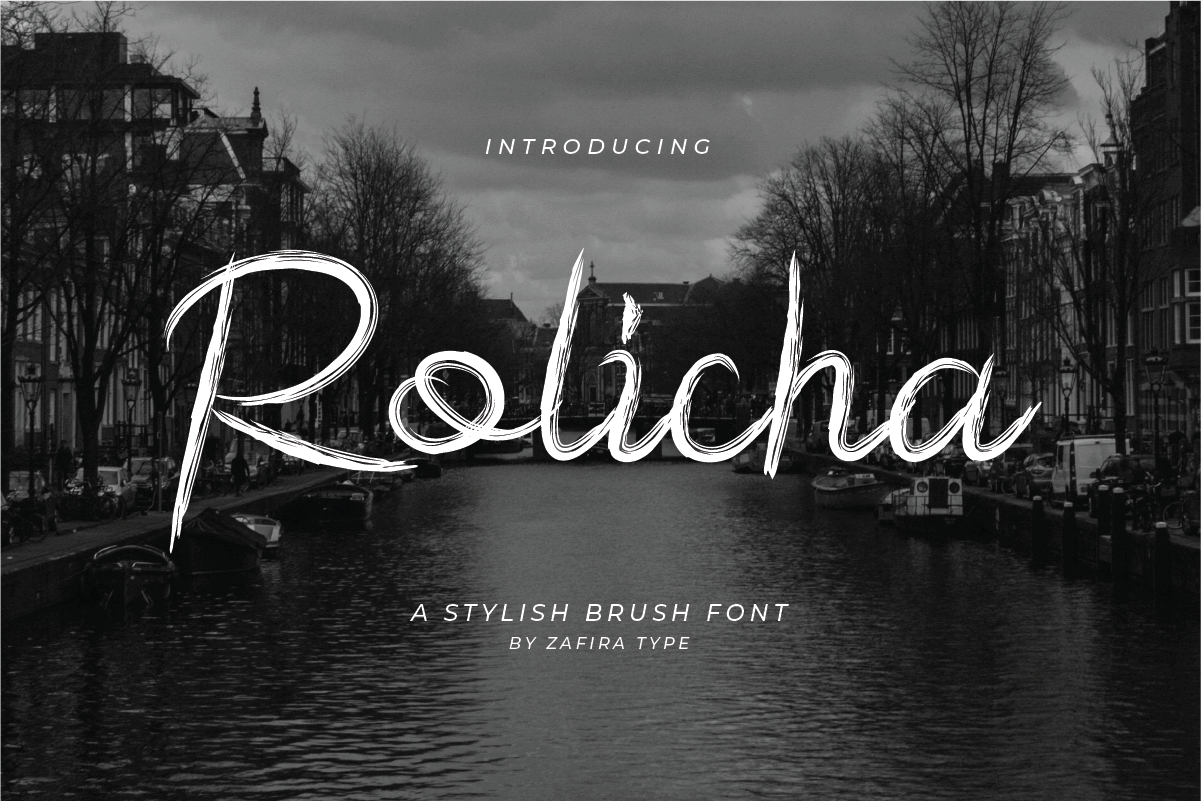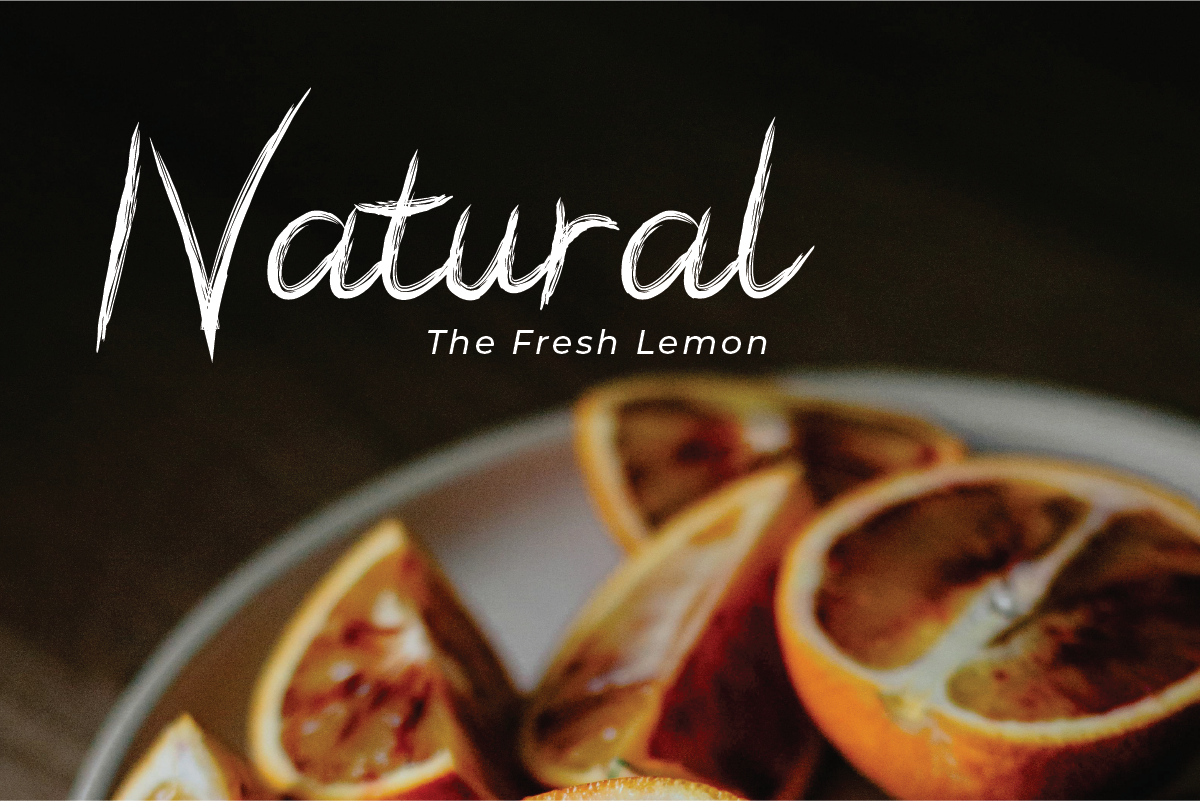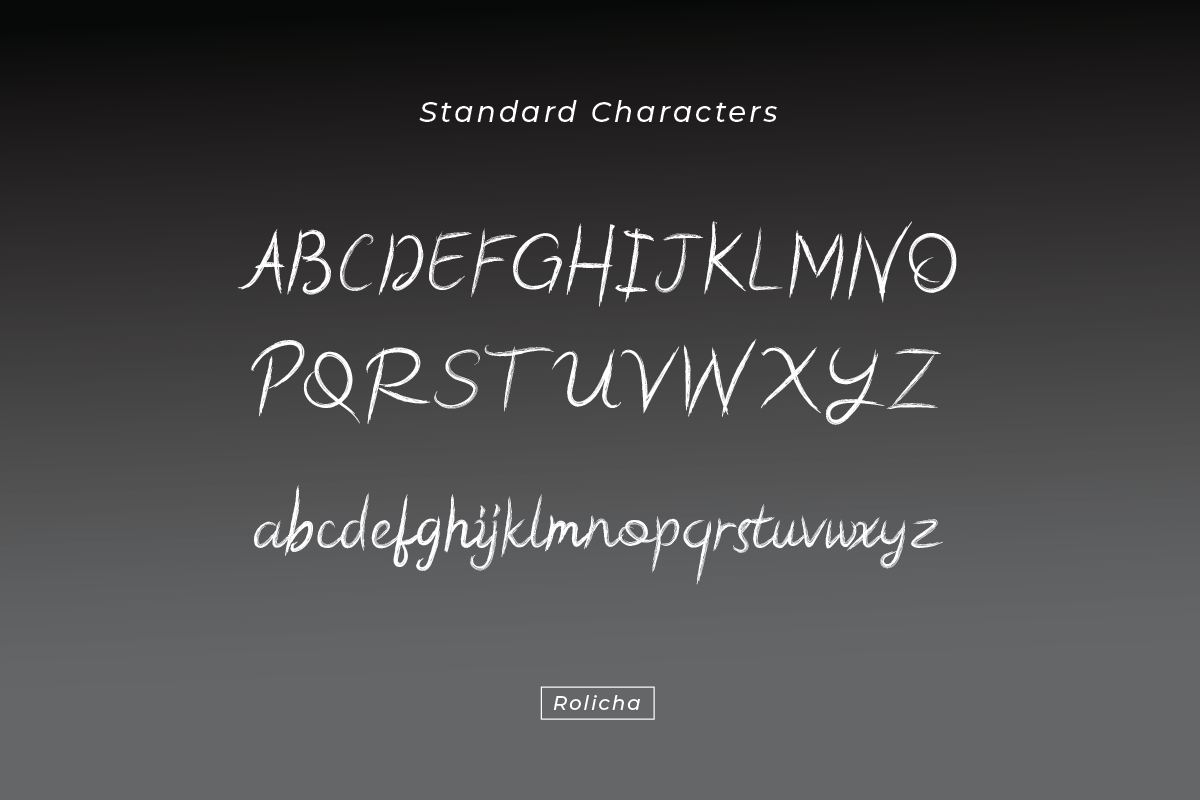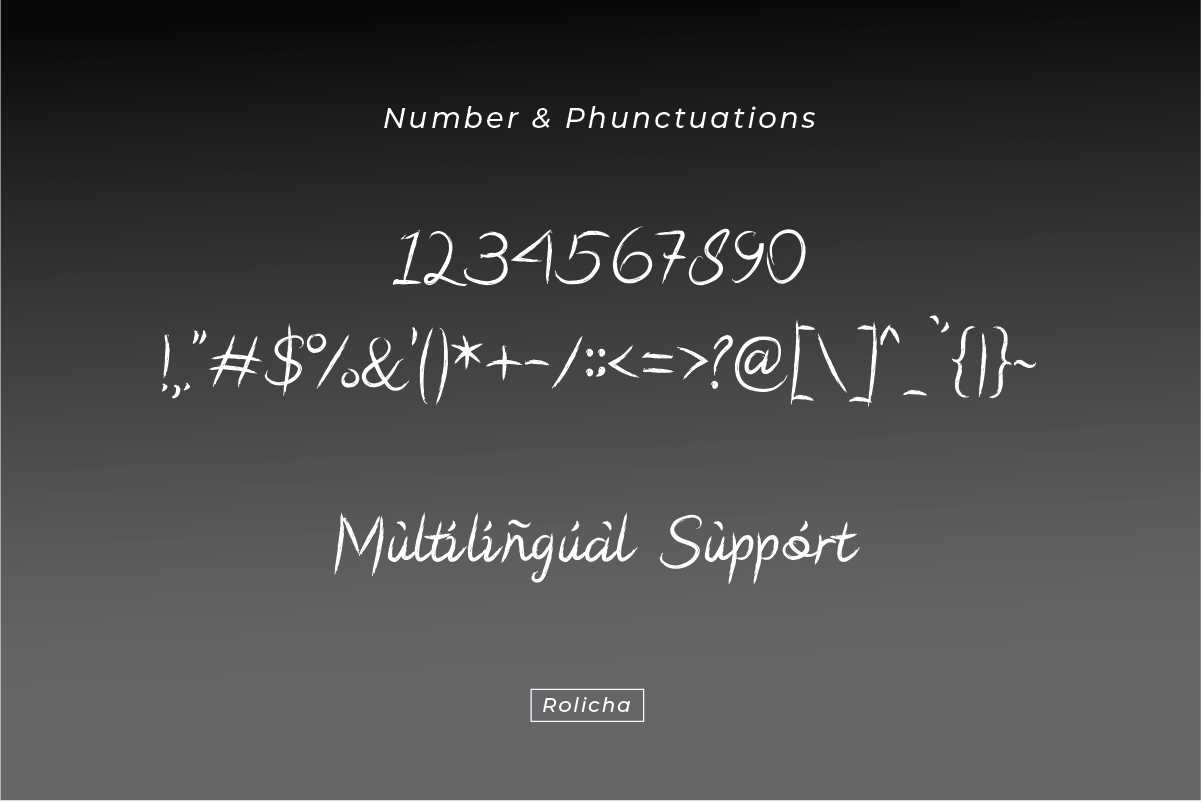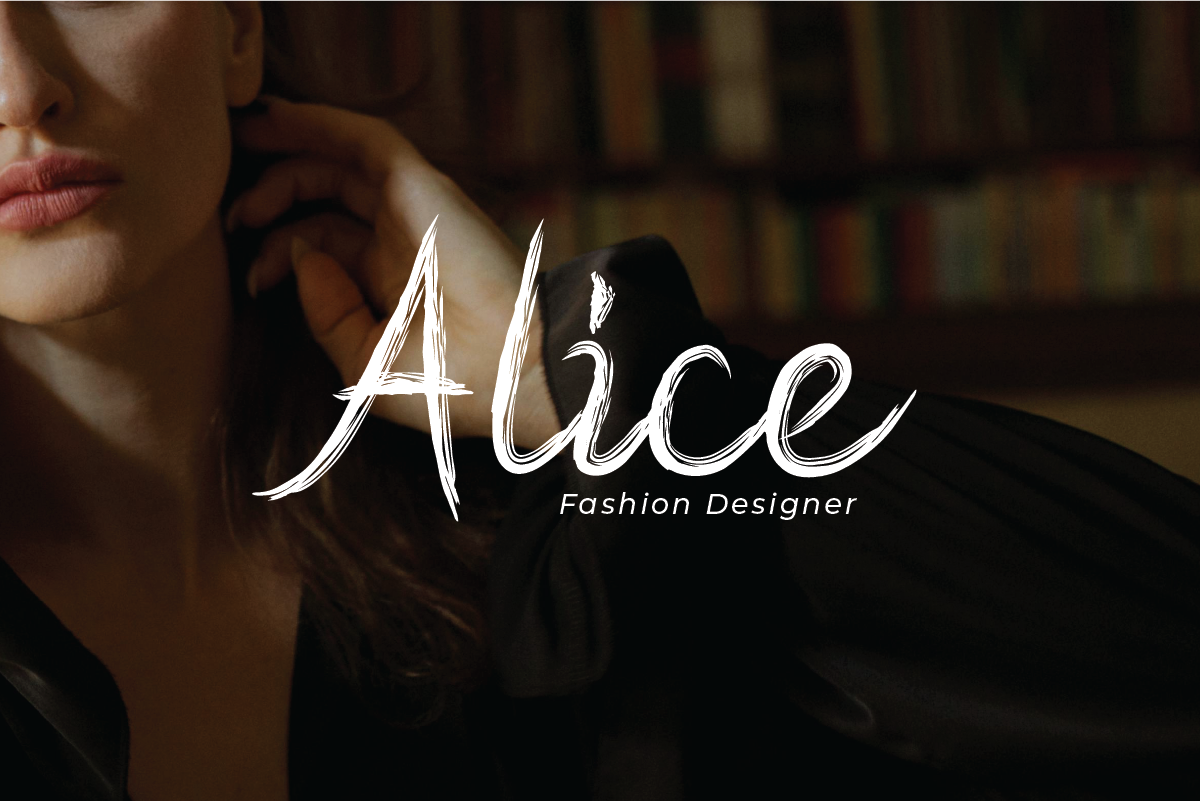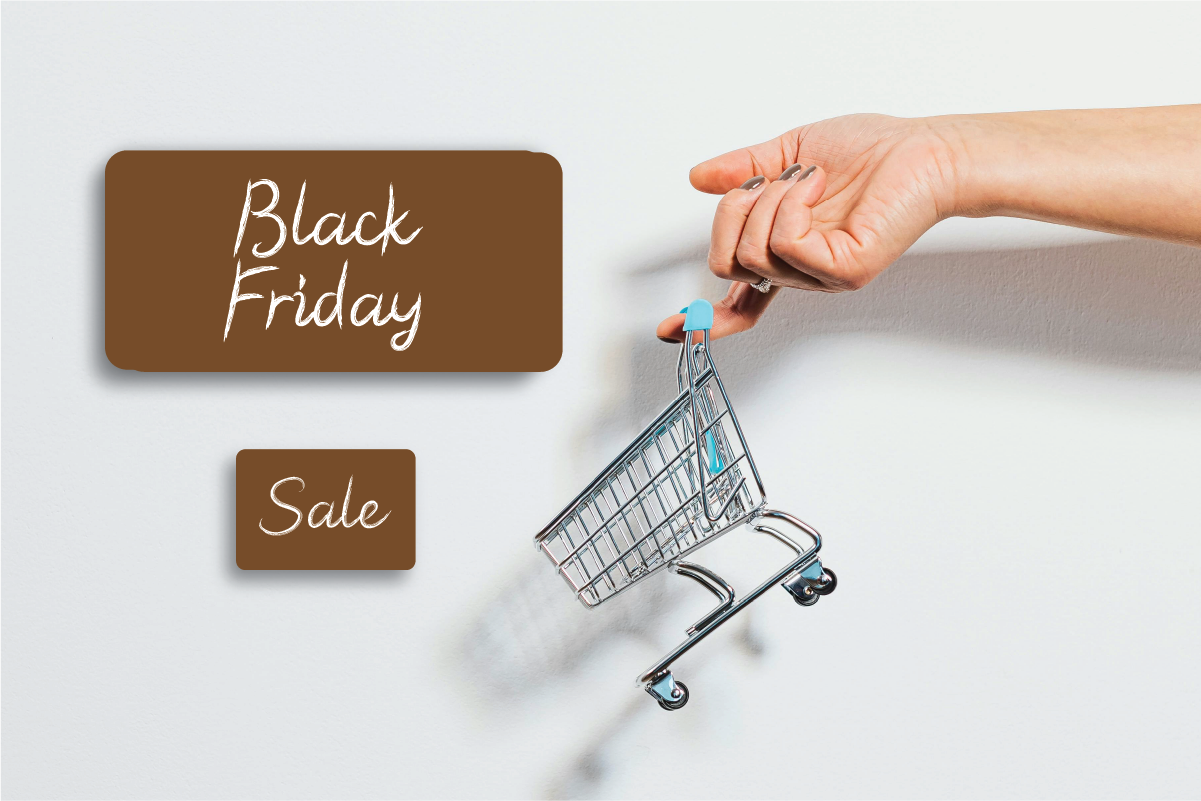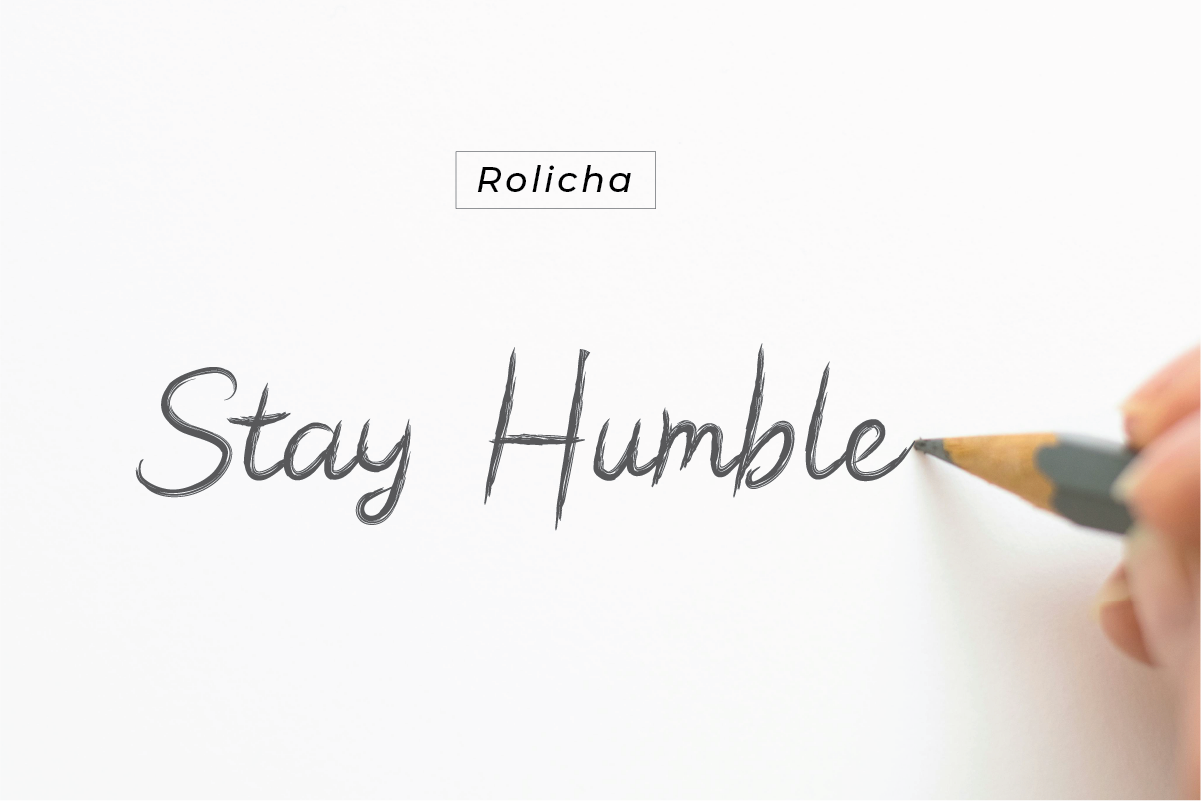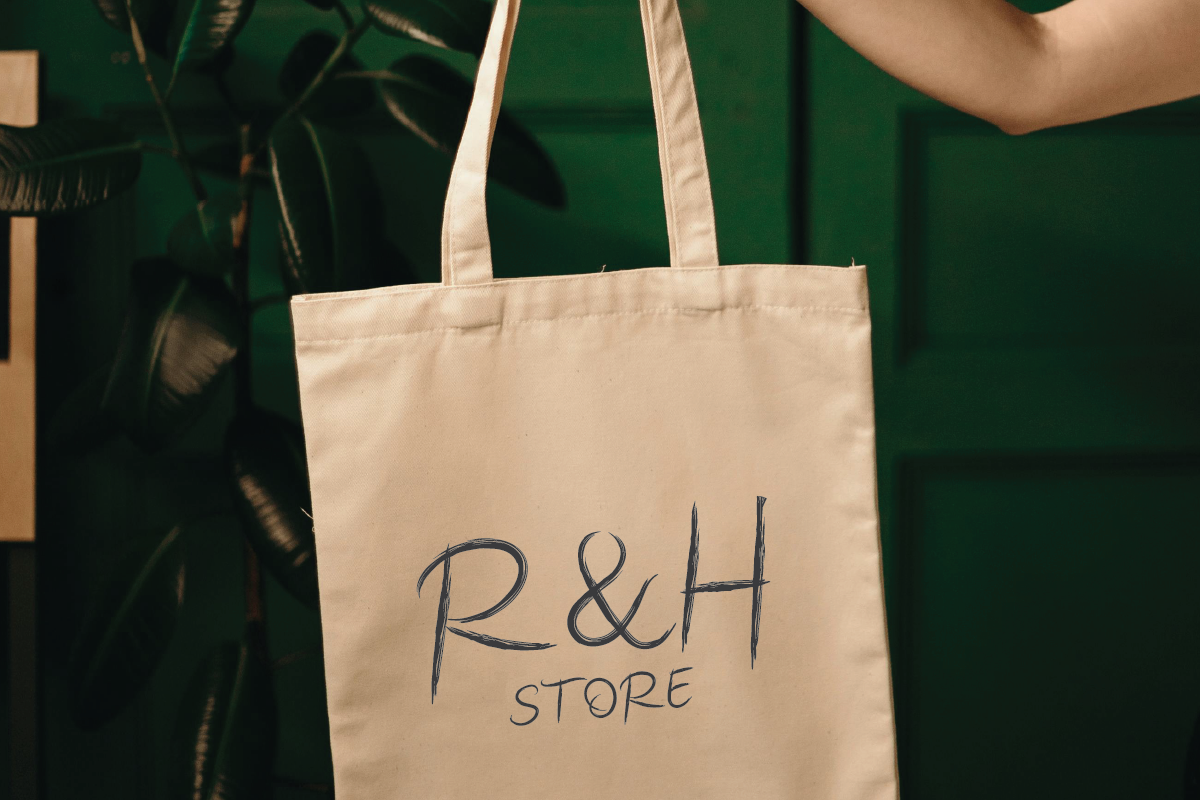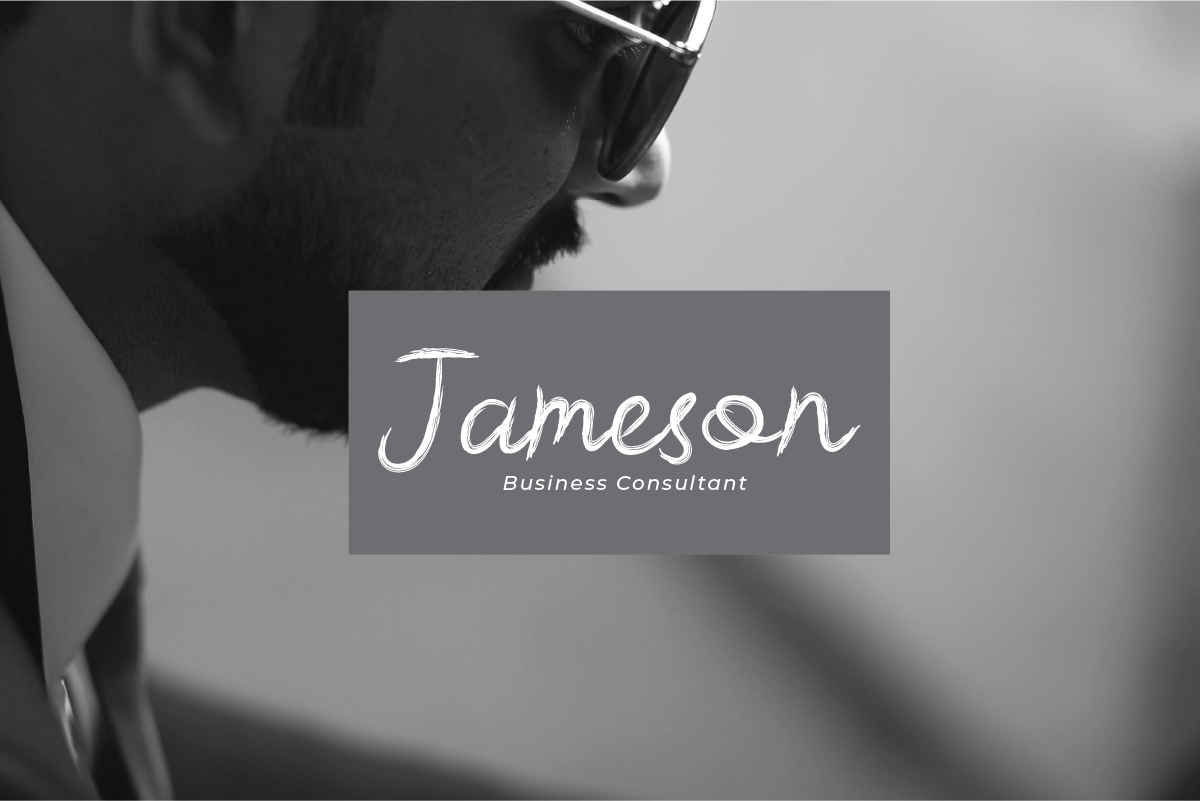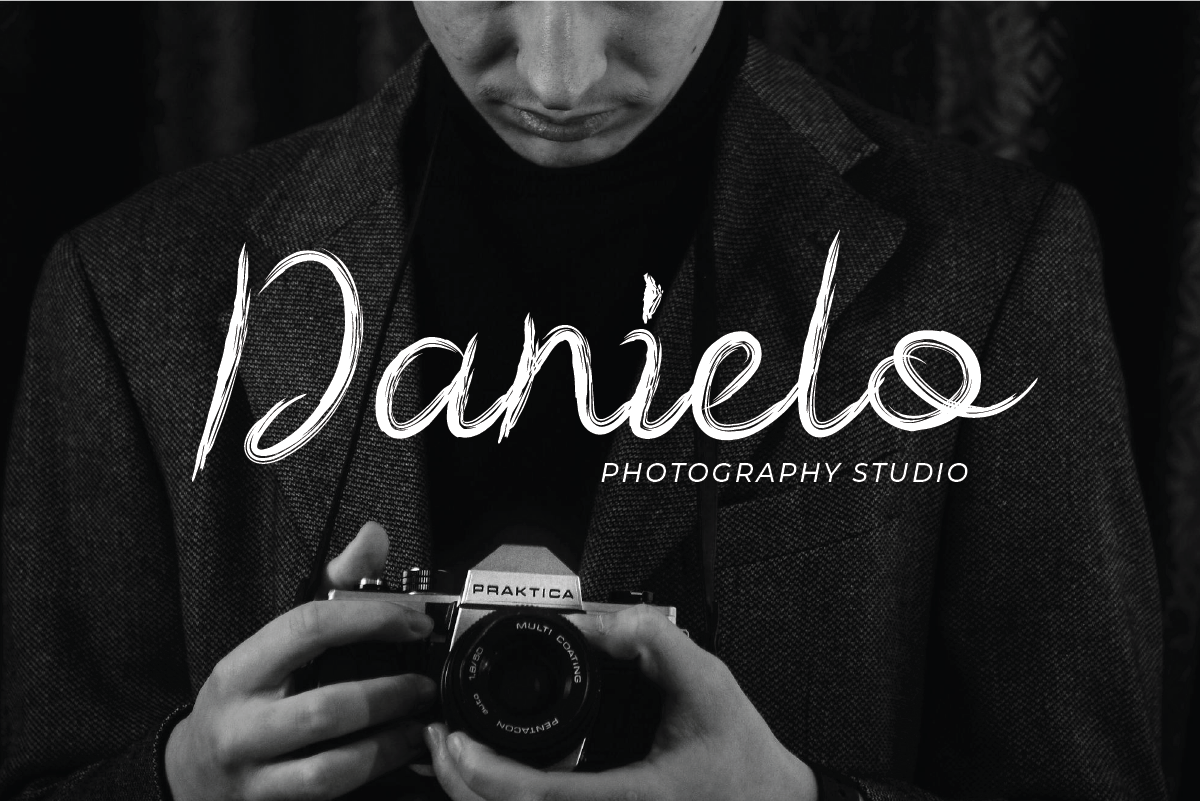
Rolicha
Introducing Rolicha, a dynamic and expressive brush font that adds an artistic touch to your design projects. With its natural strokes, Rolicha exudes a handcrafted feel full of character. Perfect for branding, posters, packaging, and social media graphics, this brush font brings an authentic, textured look that captures attention. Whether you’re aiming for a casual, bold, or artistic style, Rolicha delivers energetic and unique flair to your work. Elevate your designs with the natural and bold charm of Rolicha!
– Standard glyphs
– Multilingual
– Symbols and Number